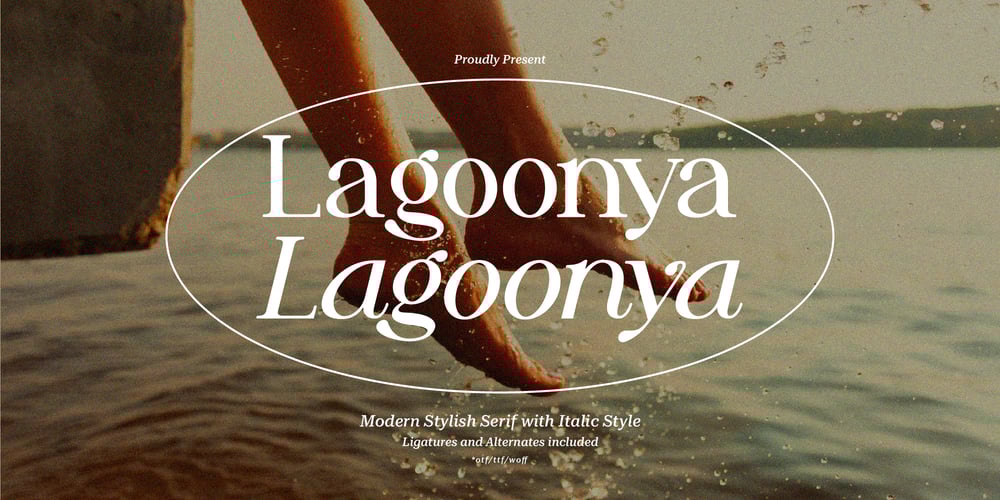
Lagoonya
Lagoonya font
Lagoonya Font Family was designed by published by Tini Fitriani. Lagoonya contains 2 styles and family package options. Lagoonya | Modern Stylish Serif, from Gracetypestudio, suitable for any projects such as: logos, branding projects, homeware designs, product packaging, mugs, quotes, posters, shopping bags, t-shirts, book covers, name card, invitation cards, greeting cards, label, photography, watermark, special events, and all your other lovely projects that need a beautiful serif taste.========================================================================What’s Included : Regular and Italic Web Font Standard glyphs Alternate and Ligature Works on PC & Mac Simple installations Accessible in the Adobe Illustrator, Adobe Photoshop, Adobe InDesign, even work on Microsoft Word and Other Software. PUA Encoded Characters – Fully accessible without additional design software. Fonts include multilingual support Hope you enjoy with our font!